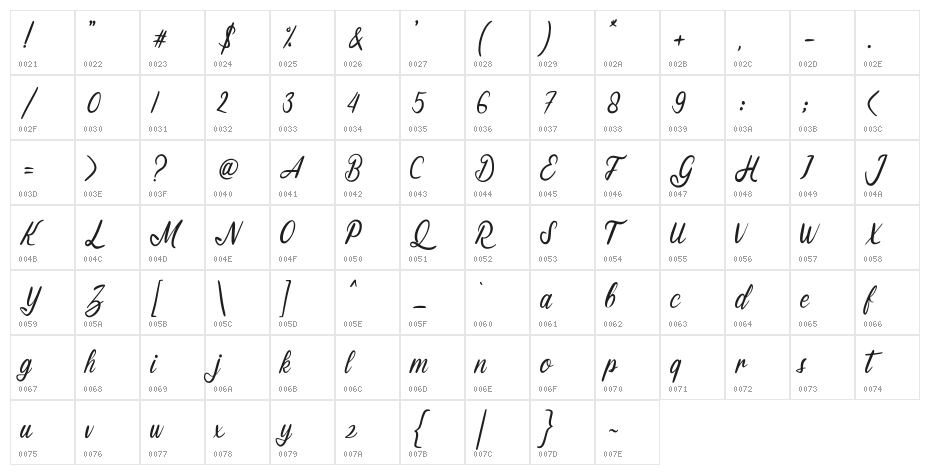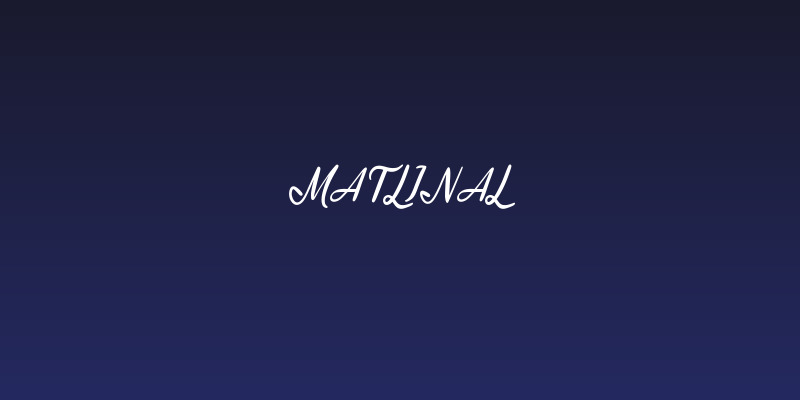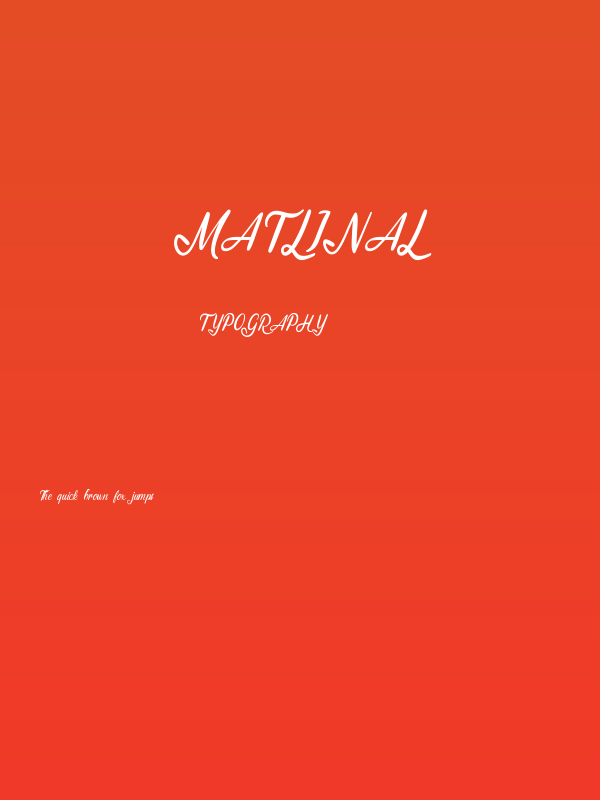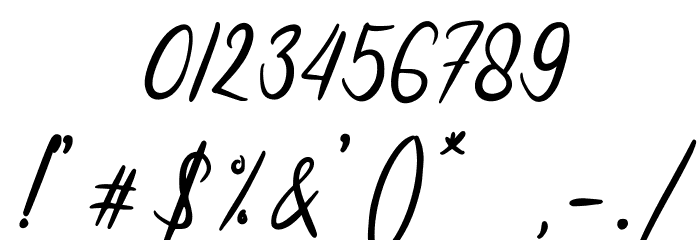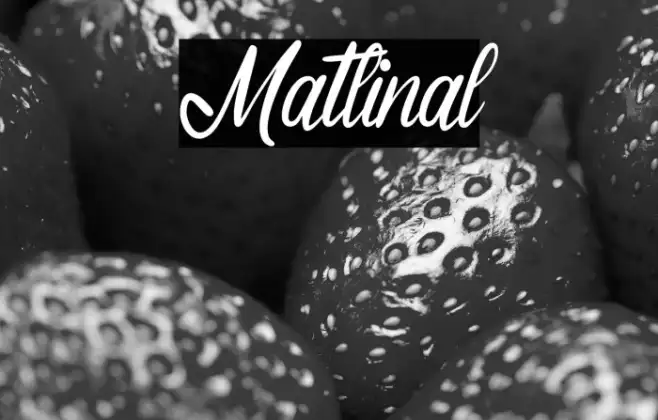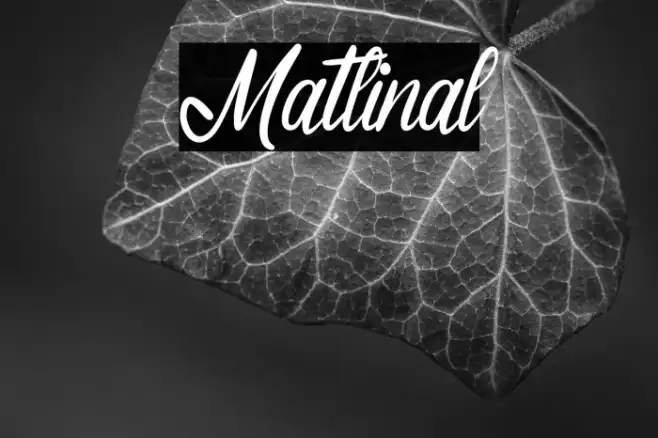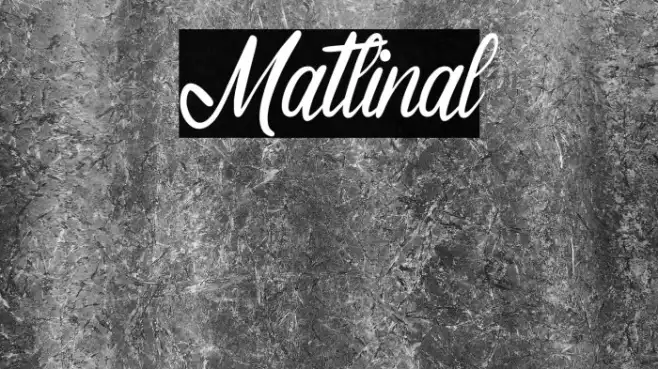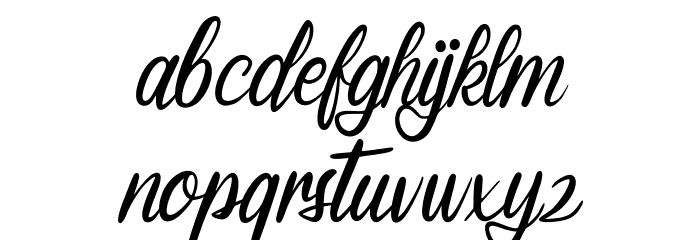
Matlinal Font
Matlinal Description
This elegant script font features flowing, cursive letterforms with a sophisticated and graceful appearance. The uppercase letters are ornate and slightly slanted, while the lowercase letters maintain a consistent fluidity, enhancing the overall aesthetic. The numerals are styled to match the script's elegance, with smooth curves and a cohesive look. Special characters are thoughtfully integrated, maintaining the font's decorative style. This font is ideal for projects that require a touch of elegance and sophistication, such as wedding invitations, formal event programs, or upscale branding materials.
| Use Case | Headlines, Invitations, Branding |
| Proposed Projects | Wedding invitations, formal event programs, upscale branding materials, elegant signage. |